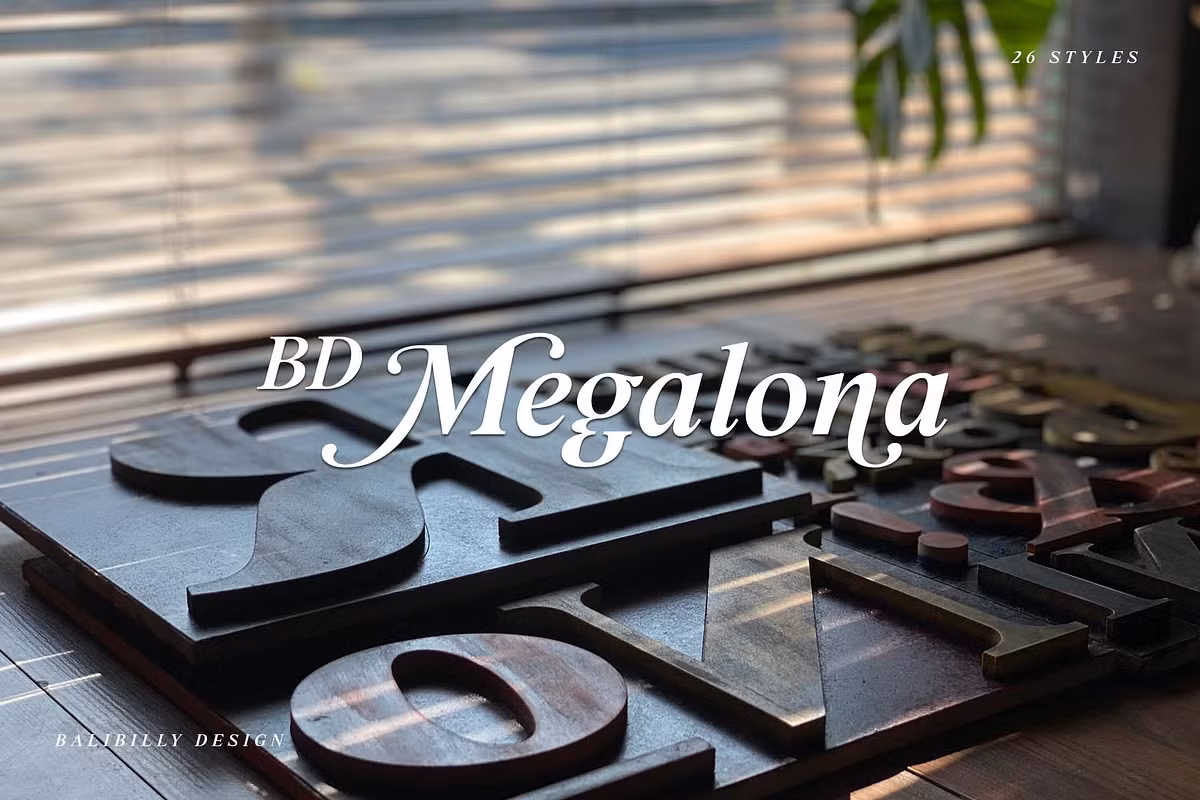
Timeless, elegant, and expertly crafted, BD Megalona - Old Style Serif Font Free Download brings a classic charm rooted in traditional serif typography. With its subtle contrast, graceful curves, and vintage-inspired detailing, this font is perfect for book covers, editorial design, logos, invitations, and branding that calls for a touch of historical refinement.
BD Megalona delivers strong readability and a sophisticated look that makes it versatile for both print and digital use. Its old-style structure evokes a literary and artistic feel—ideal for projects that aim to balance tradition with a modern design sensibility.